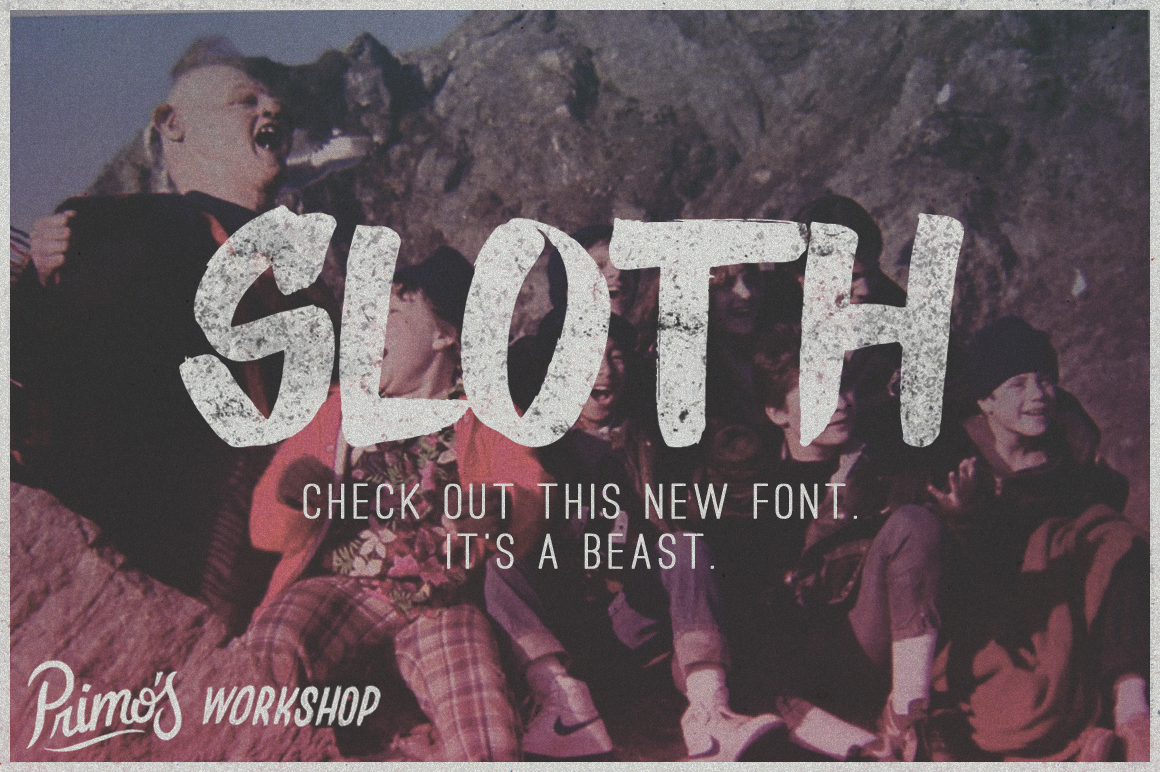
Sloth Font
I love The Goonies. I love fonts. Sloth loves Chunk. If Sloth loved fonts this is what it might look like.
Sloth comes with the uppercase alphabet characters as well as numerals. It also includes some basic punctuation: ! " , .